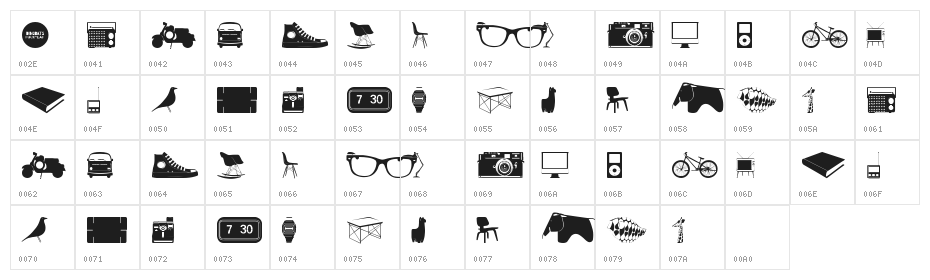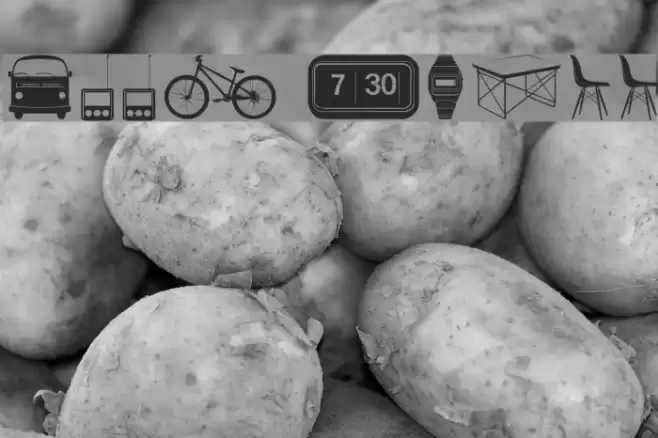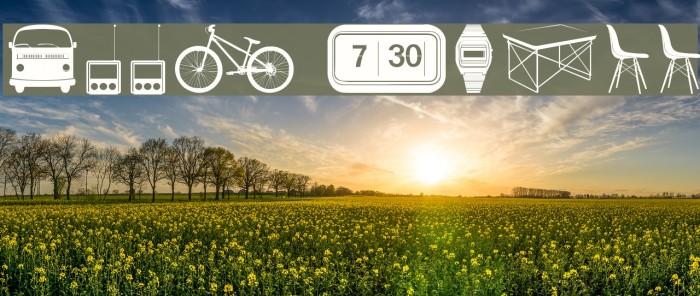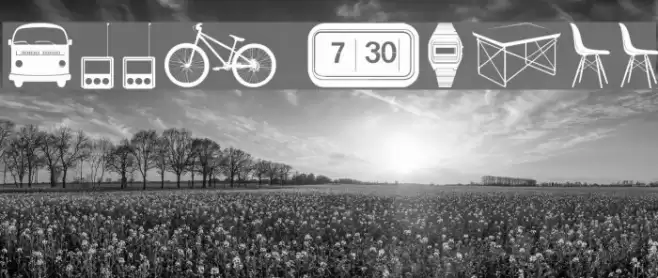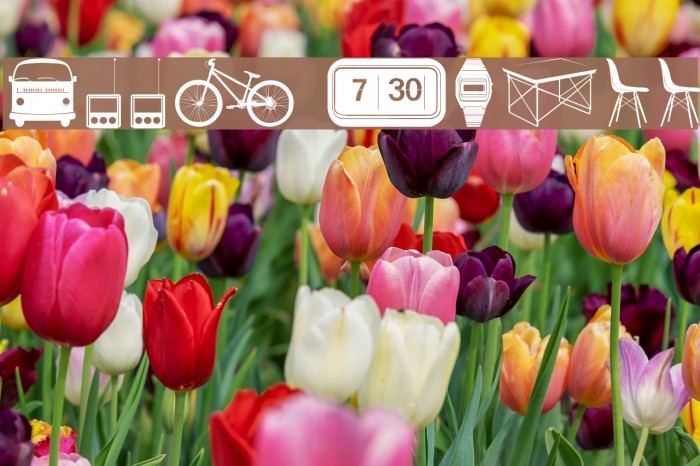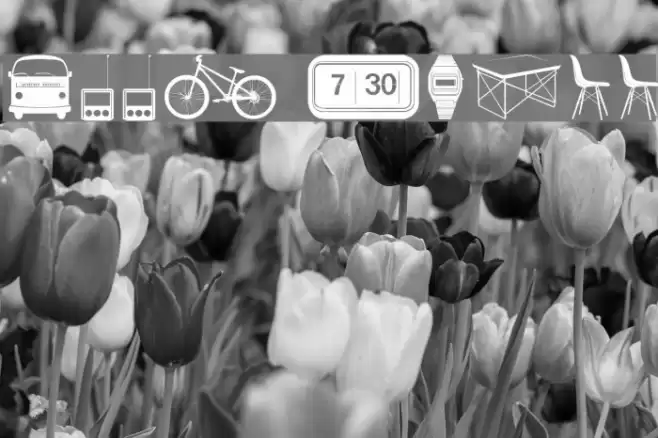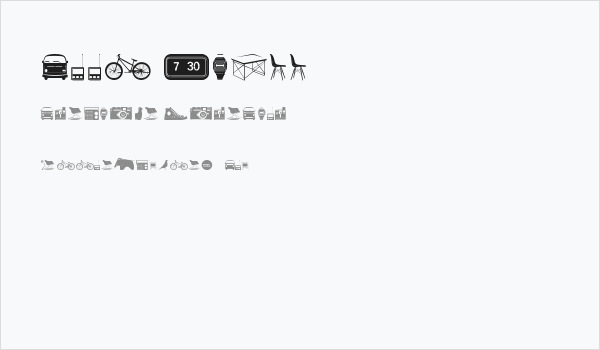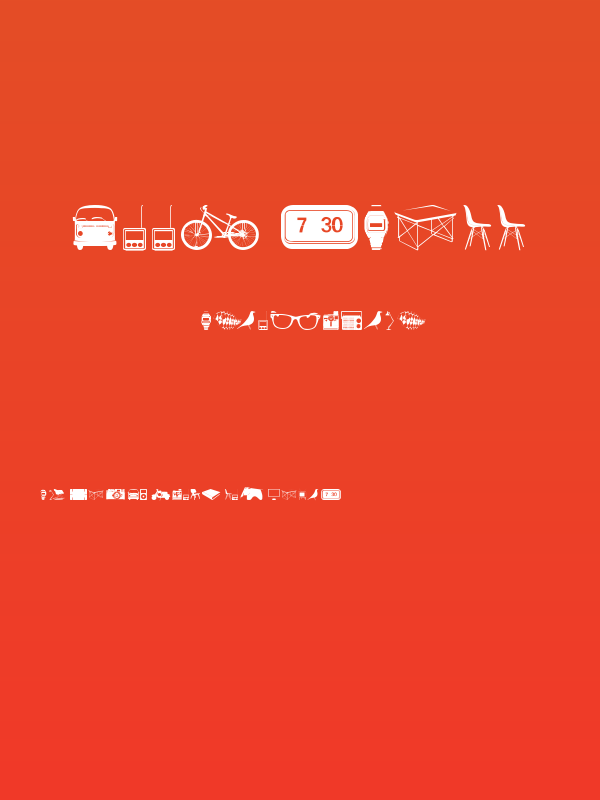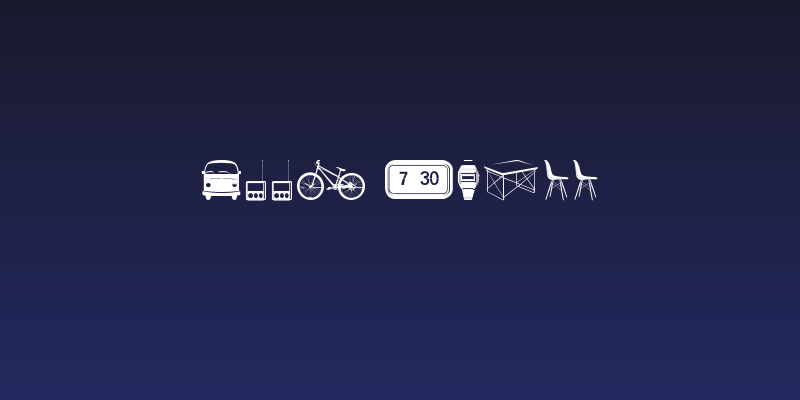
Cool Stuff Font
Cool Stuff Description
A collection of bold, solid black pictograms representing various objects such as vehicles, electronics, furniture, and animals, rendered in a consistent, minimalistic silhouette style.
| Overall Style | Decorative, Modern |
| Use Case | Icons, Decorative elements, Posters, Infographics |
| Proposed Projects | Infographics, icon sets, posters, educational materials, playful branding. |